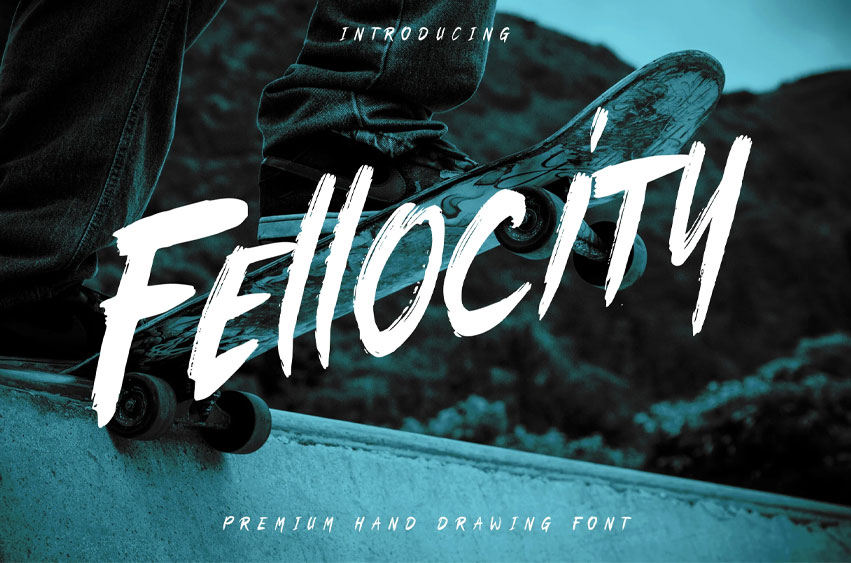
Fellocity Font Are you looking for a decorative brush font that fits with urban lifestyle? We can help! Try to download our fellocity font.
The font is suitable to use for many occasion such as branding, photography, quote, music, poster, and event.